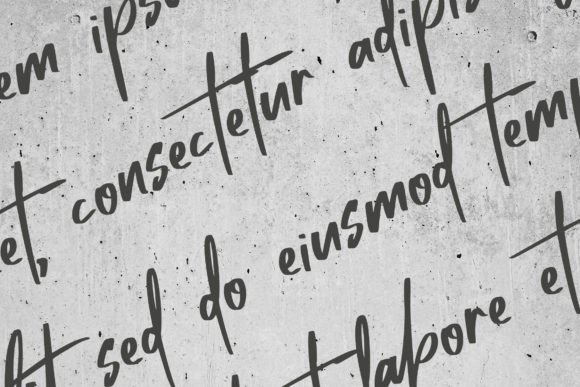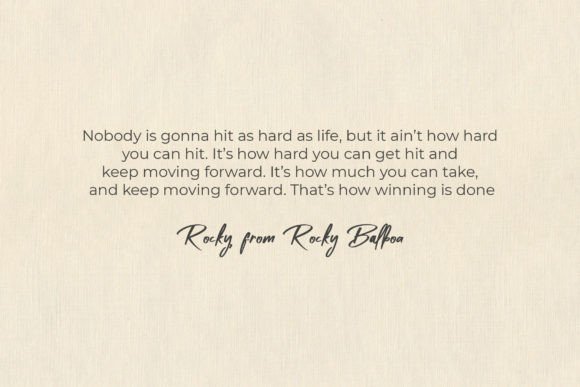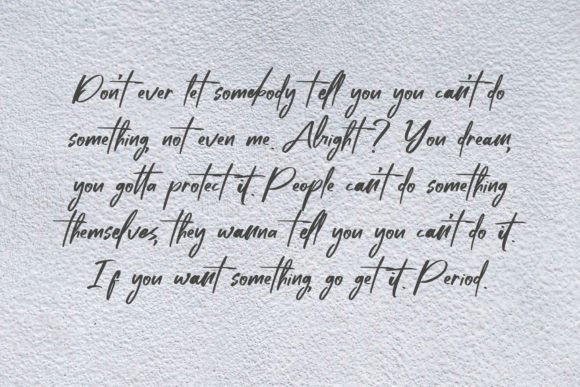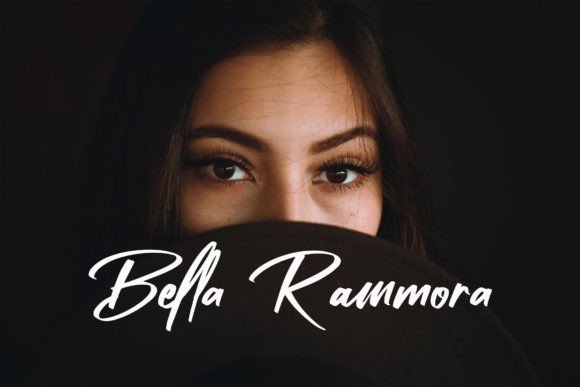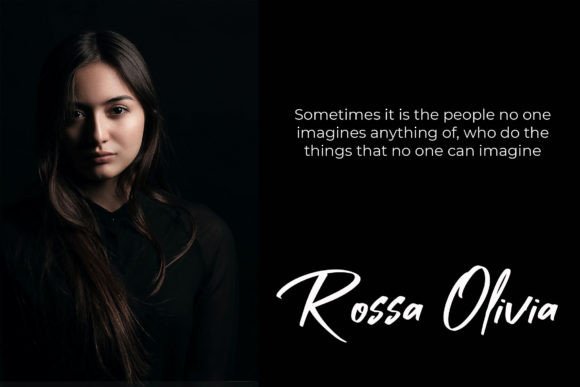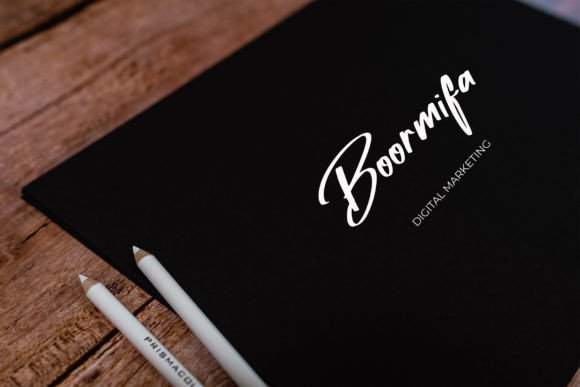
The Perfect Script for Elegant Designs
Have you ever stared at a blank canvas, waiting for the perfect font to bring your creative vision to life? The blank page can be daunting, but what if you had a font that effortlessly added a touch of sophistication and charm to your designs? This is where the Bellanitta Font comes in – a stunning script font that’s designed to elevate your creative projects.
Bellanitta Font is perfect for designers looking to add an extra layer of elegance to their work. With its unique character shapes and brush-style strokes, this font is ideal for invitations, branding, logos, and any other project that requires a touch of refinement. Whether you’re working on a wedding invitation or a luxury brand’s logo, Bellanitta Font is sure to make a lasting impression.
Bellanitta Font Key Features
- Unique Characteristics: Bellanitta Font features a unique blend of elegance and sophistication, with intricate details and flourishes that set it apart from other fonts.
- Font Style: Bellanitta Font is available in both regular and bold weights, offering flexibility for designers to create a range of visual effects.
Bellanitta Font Review
Overall, I’m quite pleased with the Bellanitta font. It has a certain charm to it that can add a touch of elegance to any design. ✨ The font’s unique blend of modern and vintage elements makes it versatile and suitable for various design projects.
- Stylish and Versatile: The font’s eclectic design makes it perfect for projects that require a mix of modern and classic elements.
- Good for Display Text: Bellanitta’s bold and attention-grabbing style makes it ideal for headings and titles.
- Legibility: Despite its unique design, the font remains legible even at smaller sizes.
However, I do have some concerns about the font’s limitations. ⚠️ At larger sizes, the font can appear quite ornate, which may not be suitable for all design projects. Additionally, the font’s irregularities can make it challenging to pair with other fonts.
In conclusion, I think the Bellanitta font is a great addition to any designer’s toolkit. While it may not be perfect for every project, its unique style and versatility make it a great choice for designers looking to add some personality to their designs.